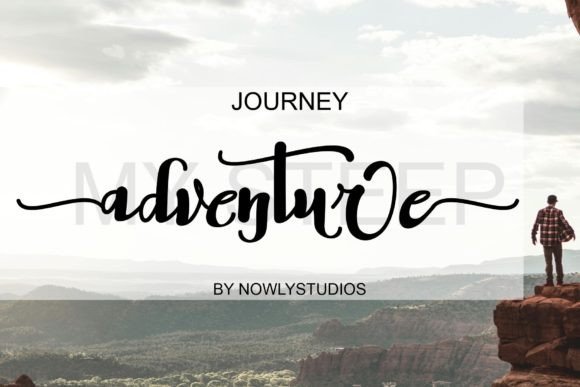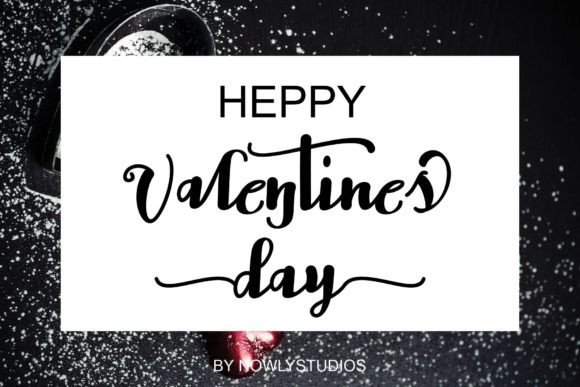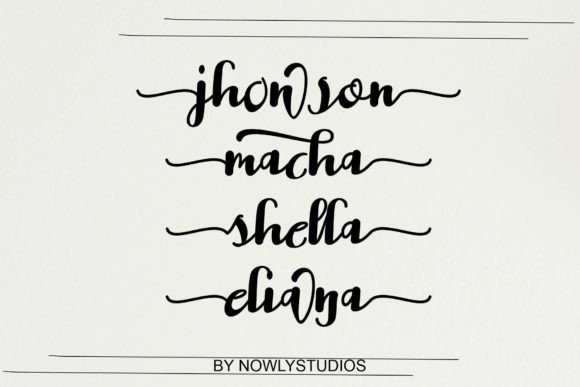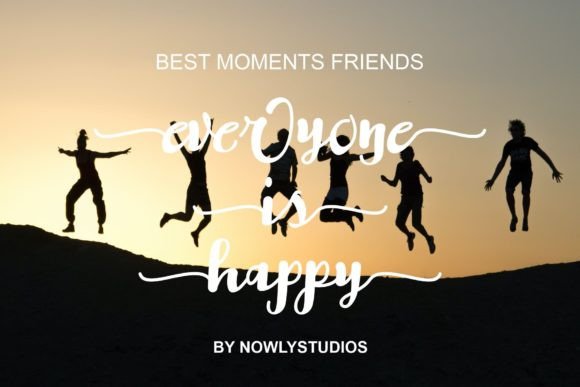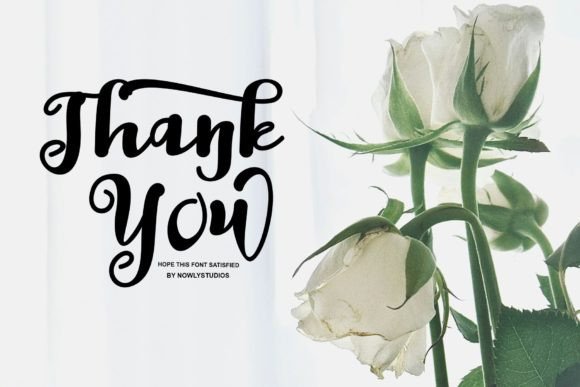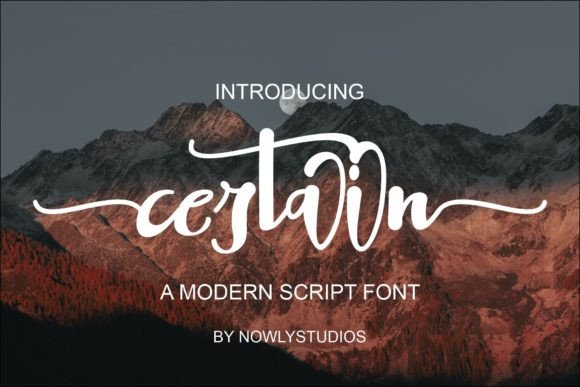
Introducing Certain – The Elegant Script Font That Elevates Designs
In the world of typography, fonts play a crucial role in conveying the tone and personality of a design. Among the numerous fonts available, Certain stands out as a distinctive and elegant script font that can instantly elevate your creative projects. With its unique character, versatility, and PUA encoding, Certain is an excellent addition to any designer’s or crafter’s toolkit.
The Distinctive Character of Certain Font
Certain font boasts a thick and elegant appearance, making it perfect for designs that require a touch of sophistication. Its relaxed and flowing calligraphy style gives it a unique charm that sets it apart from other script fonts. The font’s distinctive character is characterized by its:
- Thick and elegant strokes
- Relaxed and flowing calligraphy style
- PUA encoding for easy access to glyphs and ligatures
Versatility of Certain Font
One of the standout features of Certain font is its incredible versatility. This font can be used in a wide range of designs, from:
- Social media graphics and quotes
Whether you’re designing for print or digital media, Certain font can help you create stunning visuals that capture your audience’s attention.
Benefits of Using Certain Font
By incorporating Certain font into your designs, you can:
- Elevate your designs to the highest levels
- Add a touch of sophistication and elegance
- Create unique and eye-catching visuals
- Enhance your brand’s personality and tone
PUA Encoding: Easy Access to Glyphs and Ligatures
Certain font is PUA (Private Use Area) encoded, which means you can easily access all the amazing glyphs and ligatures. This feature allows you to:
- Explore a wide range of alternative characters
- Create custom combinations of letters and symbols
- Add unique touches to your designs
Tips for Using Certain Font Effectively
To get the most out of Certain font, consider the following tips:
- Use it as a headline font to grab attention
- Pair it with complementary fonts for contrast
- Experiment with different colors and textures
- Take advantage of the font’s ligatures and glyphs
| Font Name | Certain Font |
| Author | nowlystudios |
Certain font is an exceptional addition to any designer’s or crafter’s collection. Its distinctive character, versatility, and PUA encoding make it an excellent choice for a wide range of designs. Whether you’re looking to create elegant wedding invitations, stunning logos, or eye-catching posters, Certain font can help you elevate your designs to new heights. So why wait? Add Certain font to your favorite creative ideas and watch them come alive!